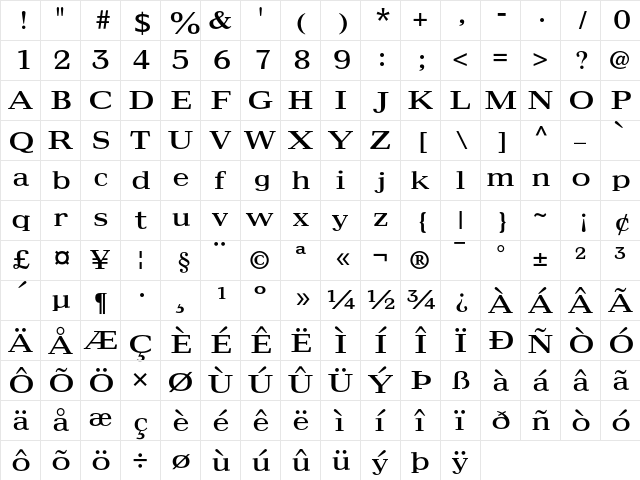
Maximus Regular
Design Context for Maximus Typeface
Maximus is a composed and adaptable typeface that performs quietly and consistently across a wide range of design contexts.